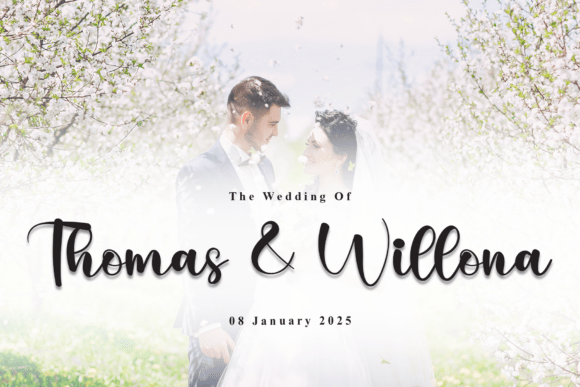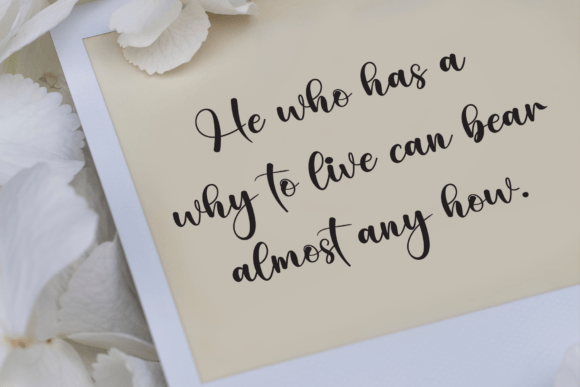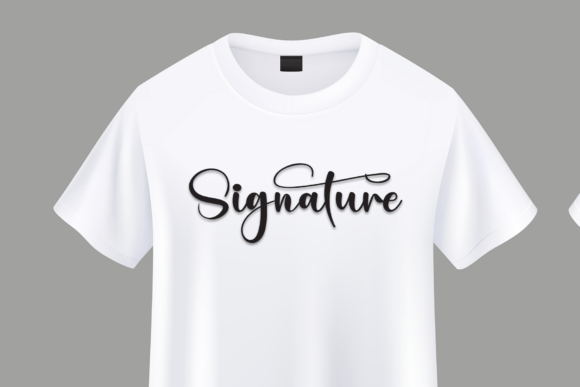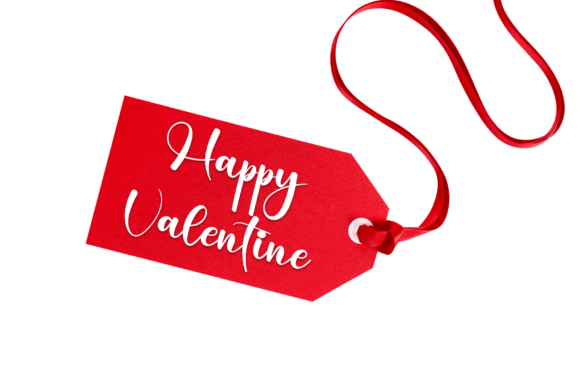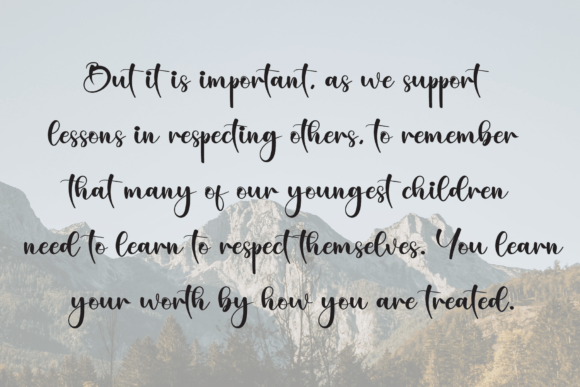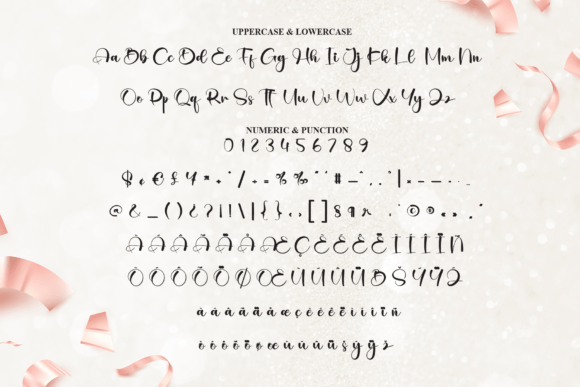
Discover the Art of Handwritten Elegance with Creative Font
There’s something magical about holding a pen and letting your thoughts flow onto paper. It’s a feeling of freedom, of self-expression, and of bringing your ideas to life. As designers, we’ve all experienced that moment when our creative vision comes together, and it’s pure magic. But what if you could capture that essence in a digital format, and share it with the world?
Enter Creative Font – a beautiful, flowing script font that adds a touch of sophistication to any design. Perfect for weddings, branding, social media, and invitations, it’s the perfect tool for designers who want to create something truly unique and memorable. With its smooth curves and graceful swashes, Creative Font brings a handwritten, romantic feel to your text, elevating it to new heights of elegance and style.
Creative Font Key Features
- Unique Character Set: Includes over 800 glyphs, including a wide range of international characters, accents, and symbols.
- Font Weight: Offers a range of font weights, from Light to Extra Bold, allowing designers to achieve the perfect balance of style and legibility.
Designer Review: Creative Font
Overall, I’d say Creative Font is a solid addition to any design project. Here are some of its standout features:
- ✨ Beautifully crafted letterforms that evoke a sense of elegance and sophistication.
- ✨ Highly legible, even at smaller font sizes, making it perfect for body text and captions.
- ✨ A wide range of weights and styles to choose from, allowing for maximum flexibility in your design.
- ⚠️ Limited language support, which may be a concern for designers working on international projects.
- ⚠️ Some users may find the font to be too ornate or over-the-top, which can be a challenge to balance with more straightforward design elements.
- ⚠️ No OpenType features or advanced typographic capabilities, which may limit its use in more complex design applications.
Overall, I’d give Creative Font 4 out of 5 stars. It’s a well-crafted font that excels in many areas, but its limitations may hold it back from being a top choice for every design project. Still, it’s a great addition to any designer’s toolkit and is sure to add a touch of sophistication to your work.
Practical Application Guide: Creative Font
Creative Font is ideal for:
– Branding and marketing materials
– Creative projects such as posters and flyers
– Digital design projects such as website headers and buttons
– Any project where a unique and eye-catching font is desired
Tips for Getting the Most Out of Creative Font
For the best results with Creative Font, follow these tips:
– Use it sparingly to create visual interest
– Pair it with other fonts to create a visually appealing contrast
– Experiment with different font sizes and colors to enhance its impact
Playfair Display is an elegant and sophisticated serif font, ideal for use in titles and headings. It features intricate details and ornate flourishes, making it perfect for luxury brands and high-end designs. Compared to Creative Font, Playfair Display has a more refined and classic look, while Creative Font is more playful and modern.
Great Vibes is a beautiful and cursive script font, suitable for use in quotes, captions, and other text elements where a personal touch is needed. It’s perfect for adding a sense of warmth and approachability to designs. Unlike Creative Font, Great Vibes is more expressive and emotive, while Creative Font is more versatile and adaptable.